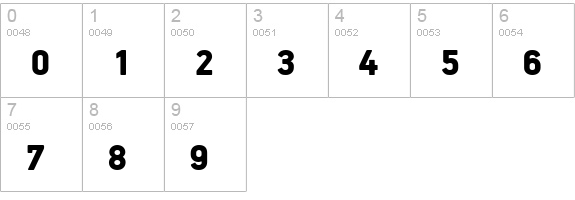
PFHandbookPro-Black is a maximum-weight, dramatic variant in the PFHandbookPro typeface family \xE2\x80\x94 well suited to maximum-impact headlines, posters, and packaging.
PFHandbookPro-Black is a sleek and modern font that exudes sophistication and elegance. Its bold and eye-catching design makes it perfect for headlines, titles, and branding materials. The sharp and clean lines of PFHandbookPro-Black give any project a professional and polished look. What's even better is that PFHandbookPro-Black is available for free at FontsMarket.com. Yes, you read that right - this amazing font can be downloaded at no cost, making it a fantastic addition to your font collection without breaking the bank. Don't miss out on the opportunity to elevate your designs with PFHandbookPro-Black - download it for free today!